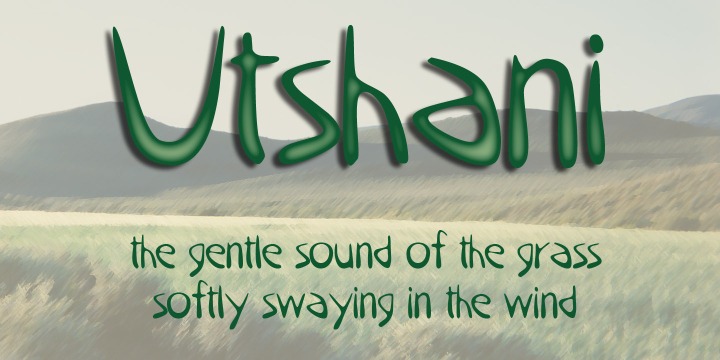
First seen on MyFonts: November 22nd, 2007 UtshaniUtshani means “grass” in the African language: Zulu. Grass has softness but it also has great strength and many African craft implements are made from it. When we describe someone as being “like the grass”, it is meant as a compliment for it means that they can be tender and strong. The fluid African font, Utshani, was designed to suggest the flexibility and strength of grass. In this way it contrasts with the majority of other "African-inspired" fonts, which tend to be heavy and hard-edged. It can be used in a wide variety of situations, in adverts and on posters and invitations. The font includes all upper and lower case letters, all numerals and punctuation as well as all special and accented characters. The font has been professionally letterspaced and kerned, and the inter-line gap has been carefully checked. Not quite what you’re looking for? Try looking at more fonts like this. ‘Utshani’ is a trademark of Scholtz Fonts. |